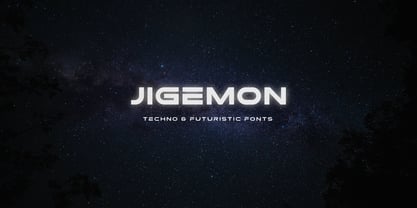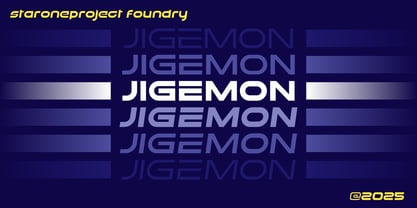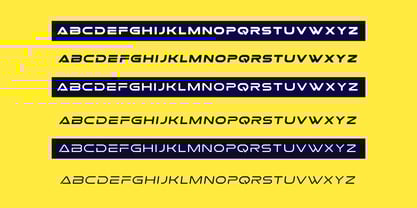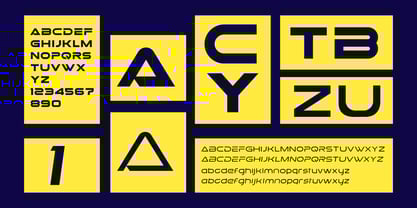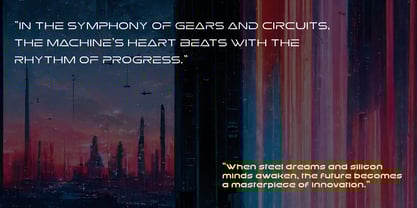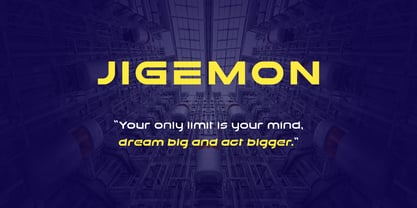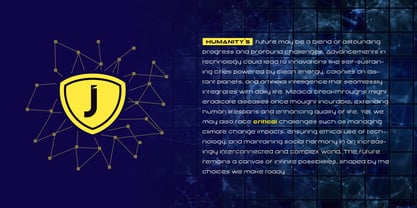
Jigemon
von Starone Project
Die Schriftfamilie Jigemon wurde von Mohammad Teguh entworfen und von Starone Project veröffentlicht. Jigemon enthält 6 Stile und Familienpaketoptionen. Mehr über diese Familie
The massive advancements in technology have resulted in many innovative products with exceptional quality. This progress has influenced the creation of the Jigemon typeface. The Jigemon typeface has characteristics that are highly synonymous with technology and the future. Therefore, we have designed this Jigemon typeface for those of you who seek a font style that exudes a sense of technology and futurism.
Designer: Mohammad Teguh
Aktuelle Foundry: Starone Project